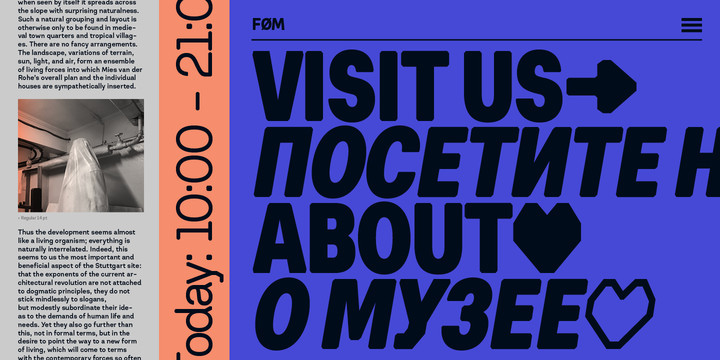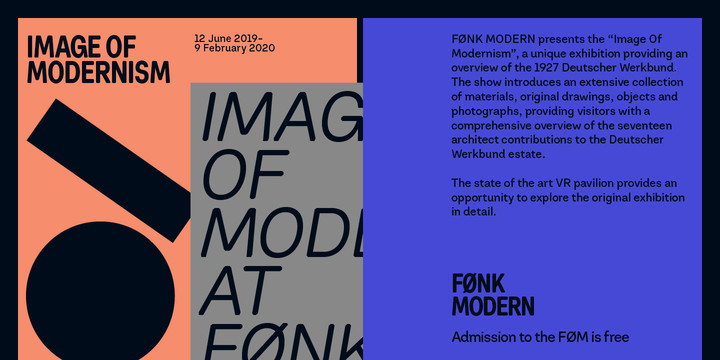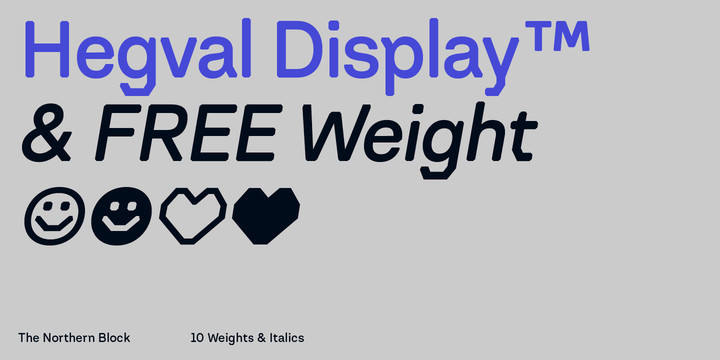
Hegval Font
Hegval Display is a sans-serif type family inspired by Gridnik and Helvetica. It is a geometric and neo-grotesque fusion. Mildly eccentric, Hegval Display features minimal stroke contrast, geometric design elements and selective emojis. Hegval Display is available in ten weights and two styles, both upright and oblique. The character set supports extended Latin and Cyrillic. OpenType features include ligatures, tabular features and fractions.